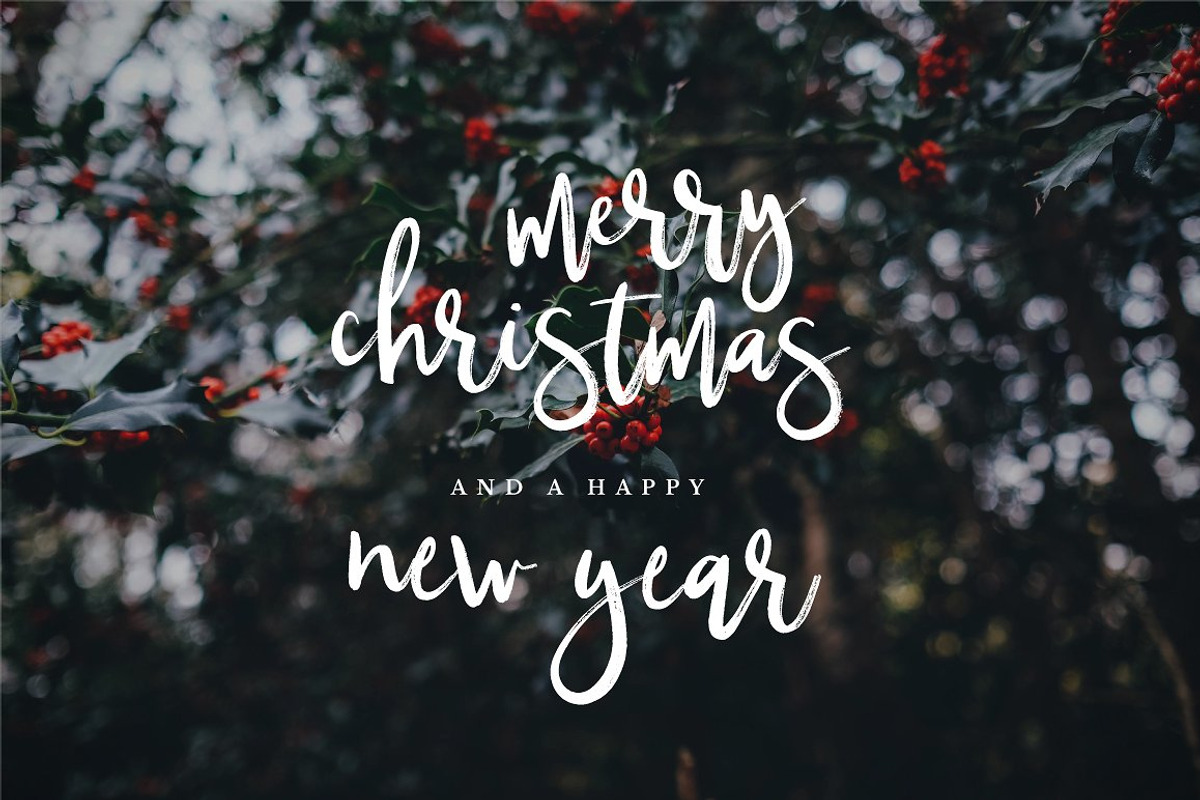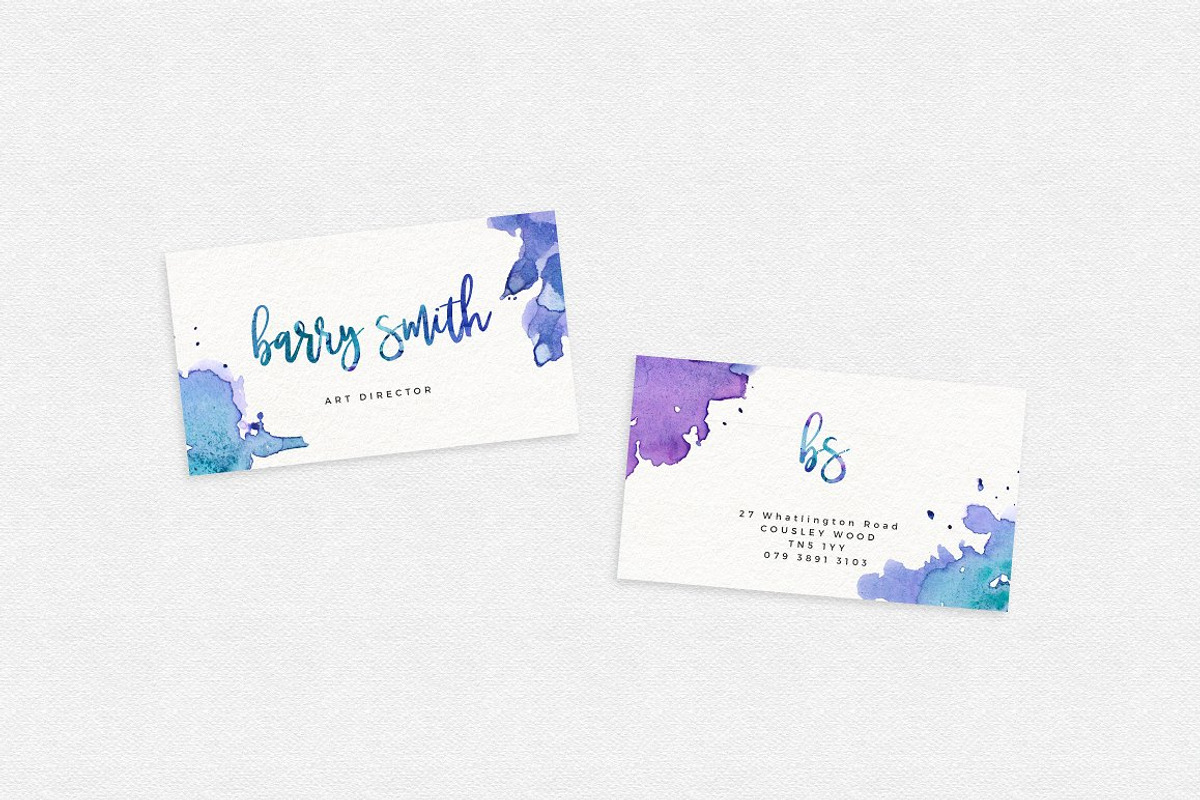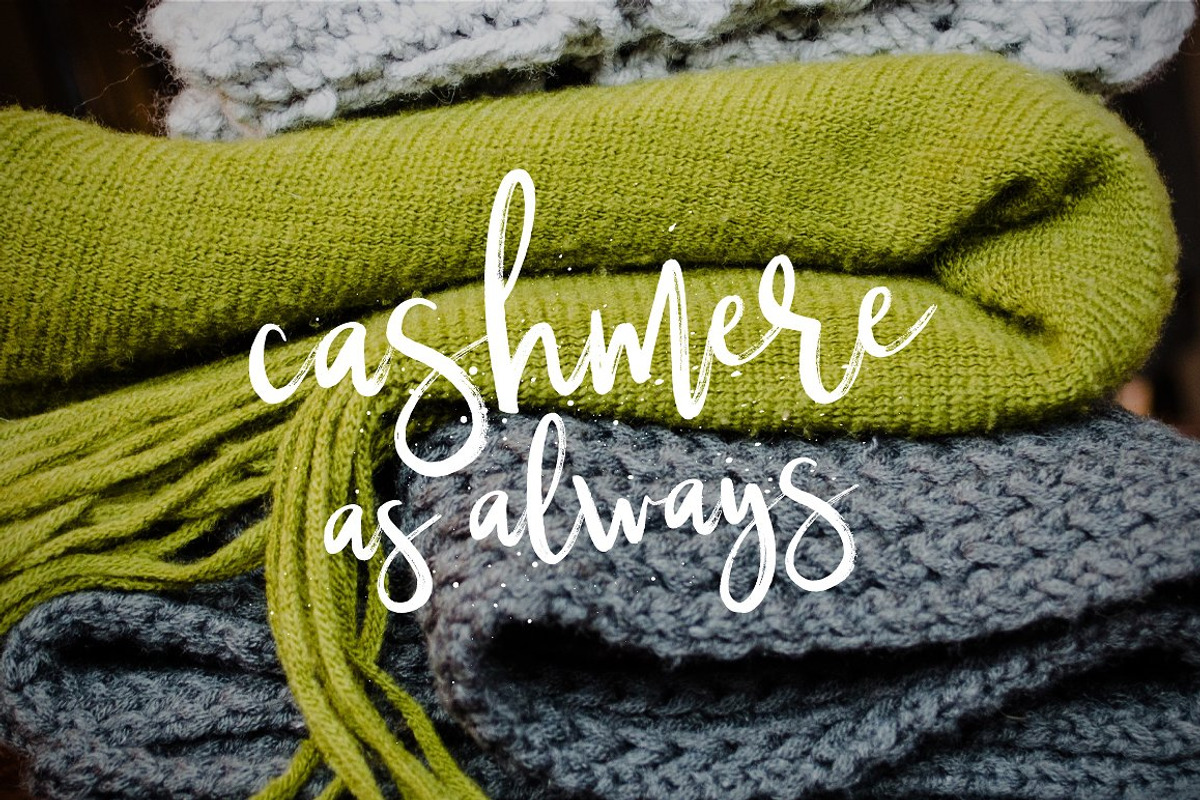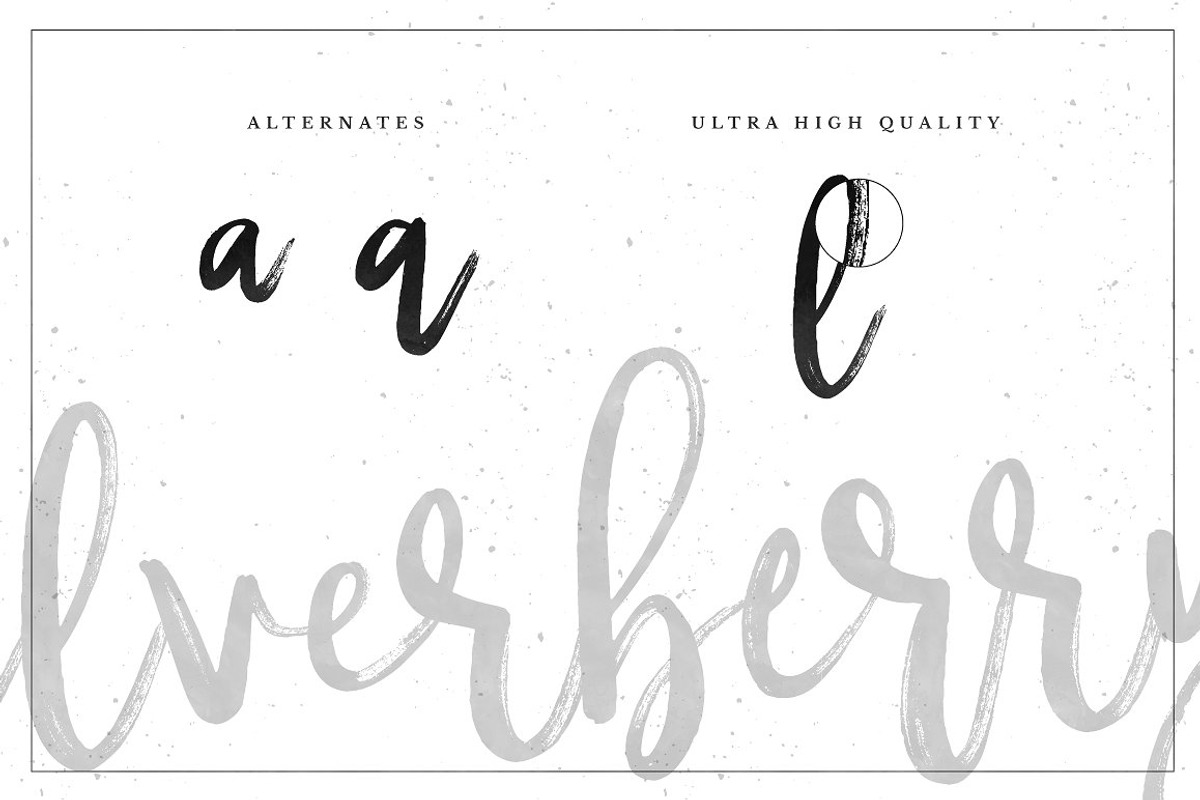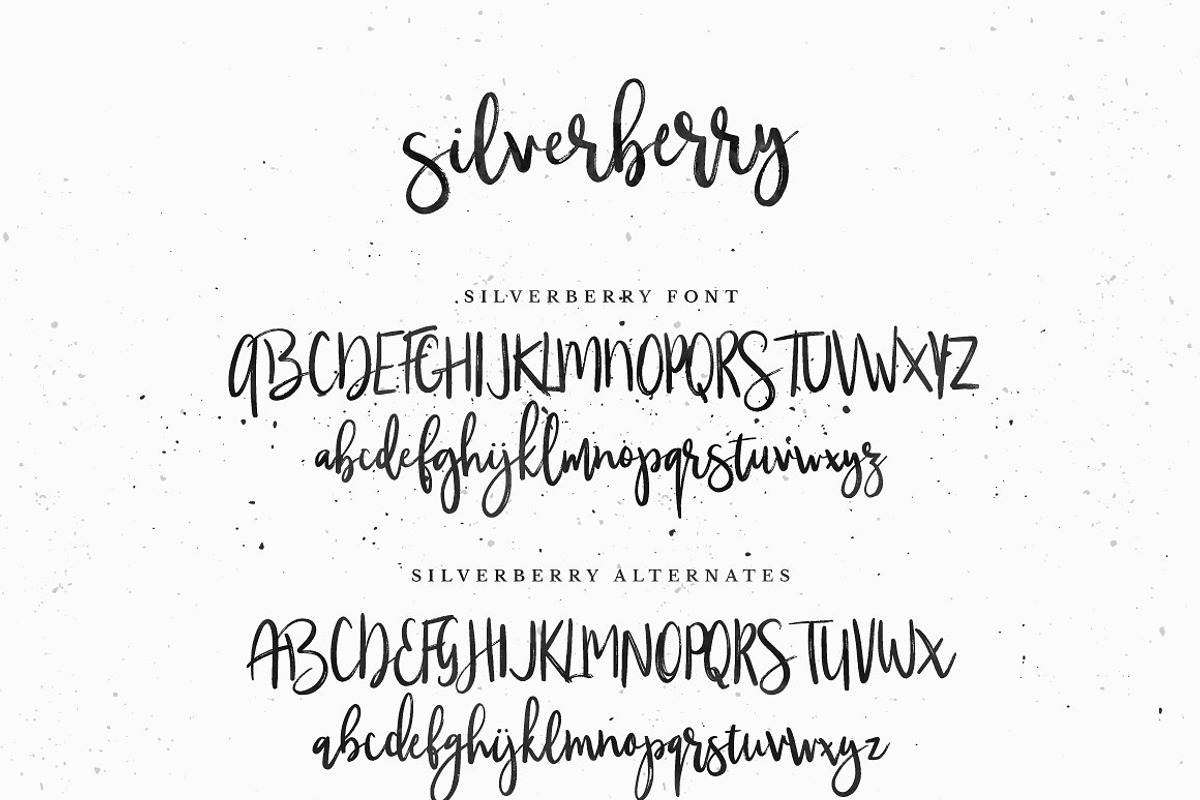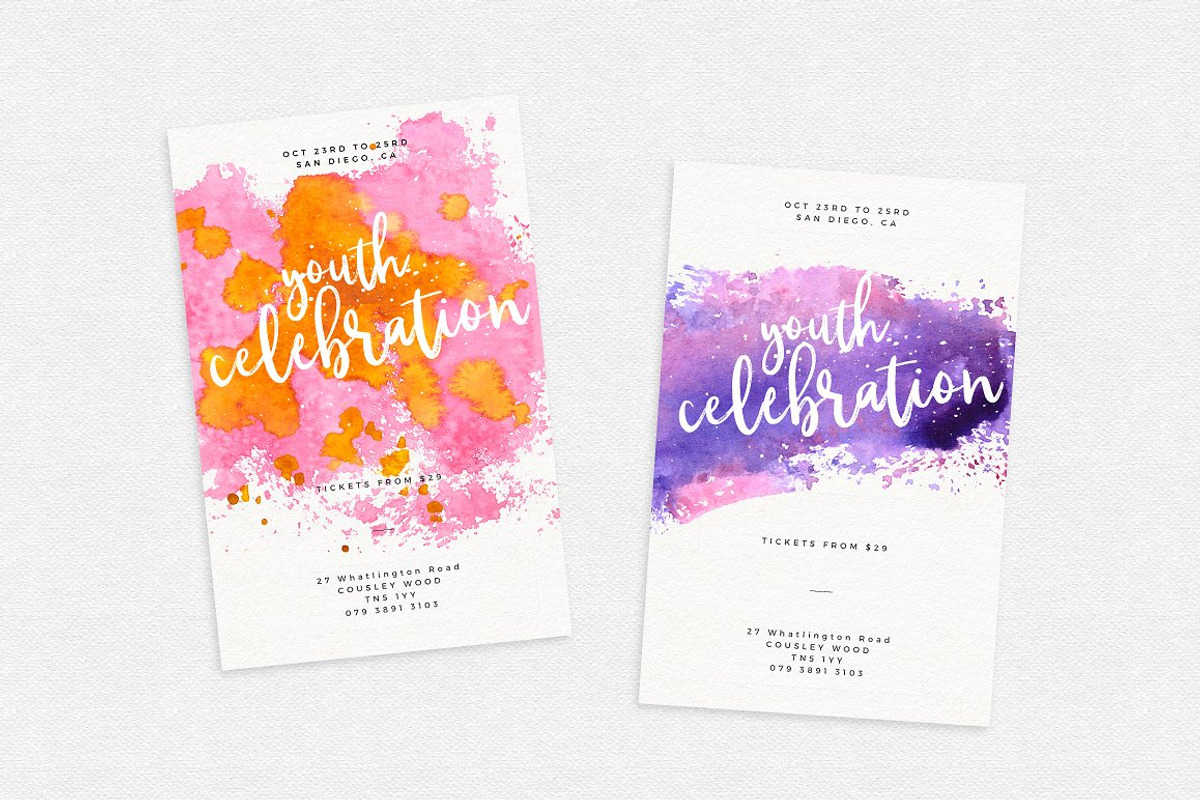
Silverberry - Dry Ink Font
Silverberry - Dry Ink Font by Mats-Peter Forss is a font selected for branding, posters, packaging, typography.
- Silverberry includes modern cute & bouncy characters with upper and lowercase alternates that plays perfectly together all day long!
- Silverberry- Upper and lowercase characters, numerals, punctuations and a wide language support.
- Silverberr Alternates - Full alternates for upper and lowercase characters to make your design look more awesome!!
Silverberry - Dry Ink Font by Mats-Peter Forss fits naturally into Branding, posters, packaging, typography.